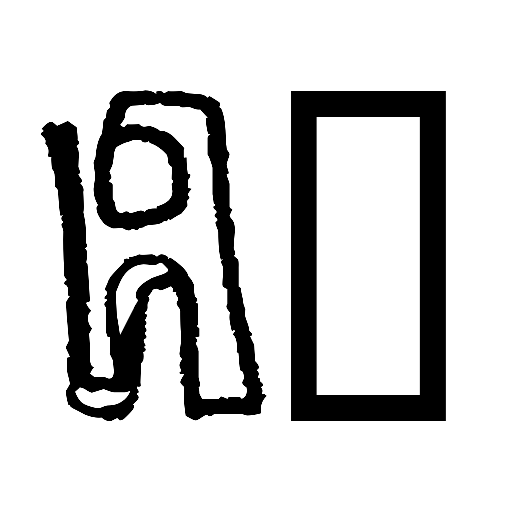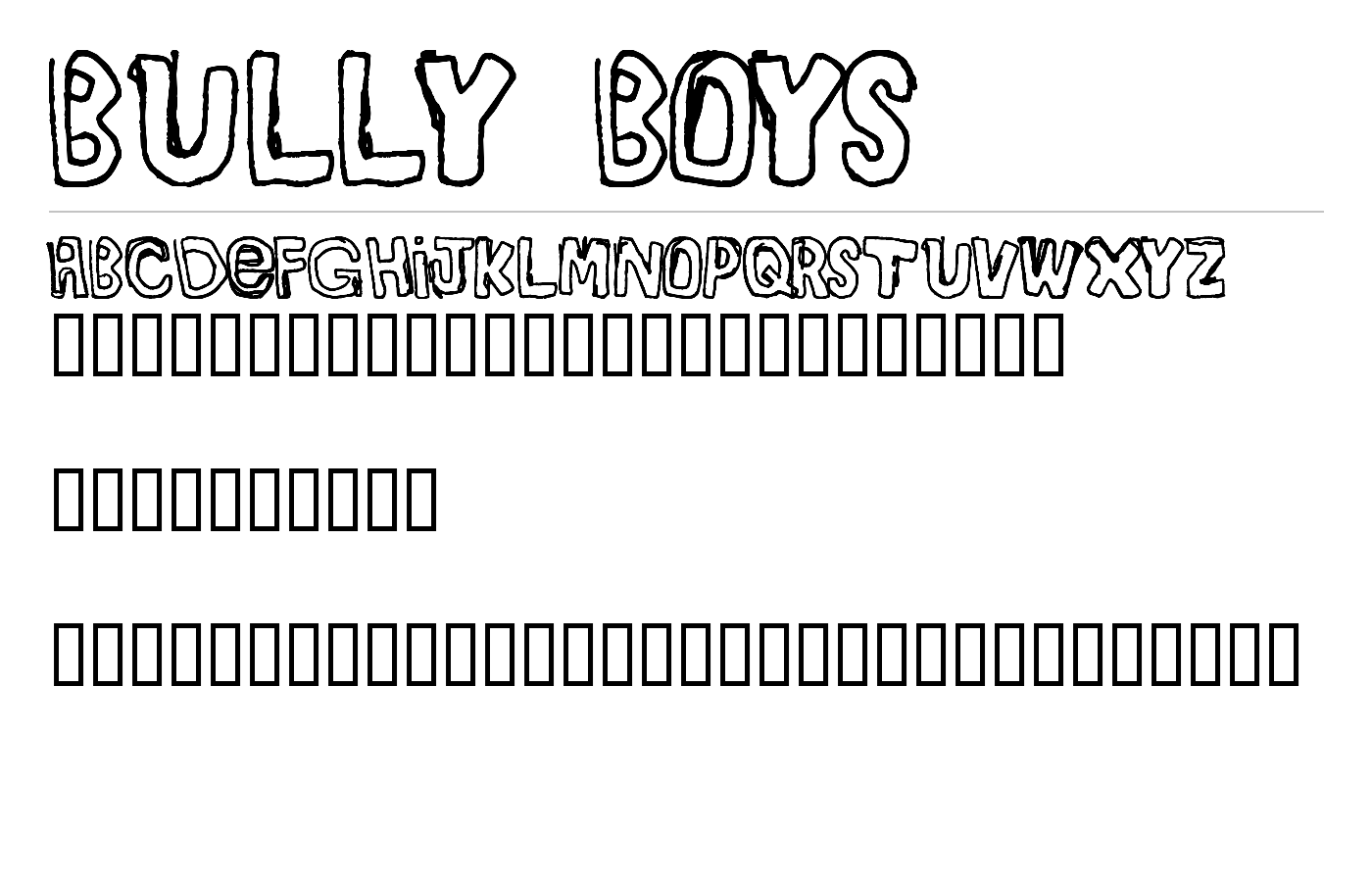
BULLY BOYS is a bold, hand-drawn display font featuring irregular, chunky letterforms with a playful and slightly rough edge, giving it a casual, informal vibe. Its uneven strokes and quirky shapes make it perfect for eye-catching headlines, posters, or branding aimed at a fun, youthful audience looking for something energetic and expressive. This font works well in creative or rebellious designs where personality and a handcrafted feel are key.
BULLY BOYS Font
About BULLY BOYS Font